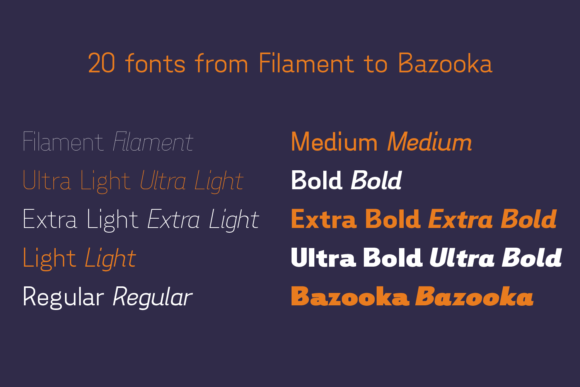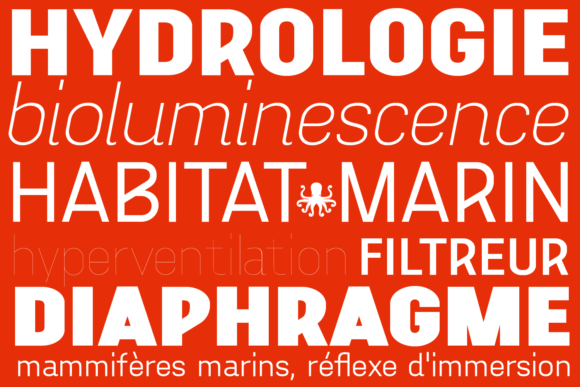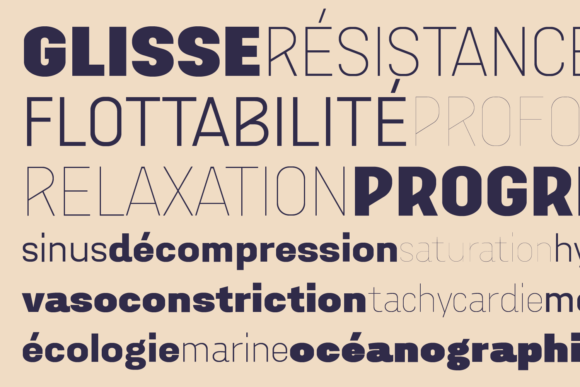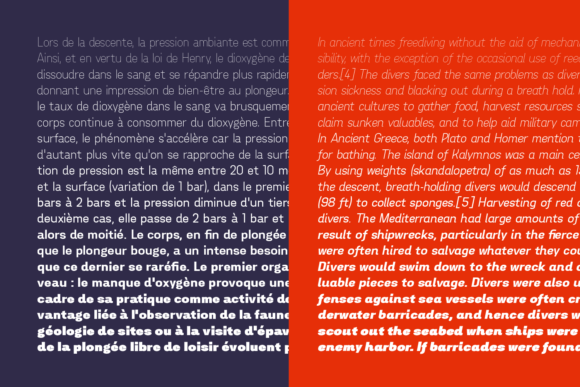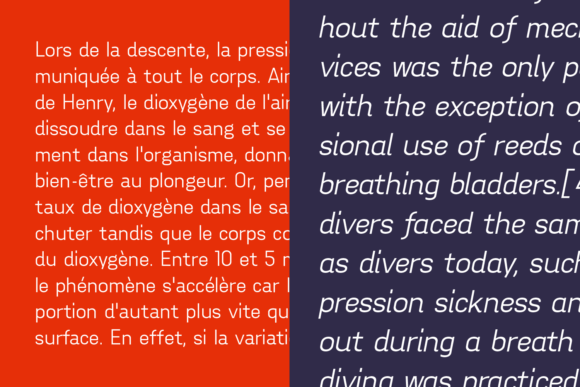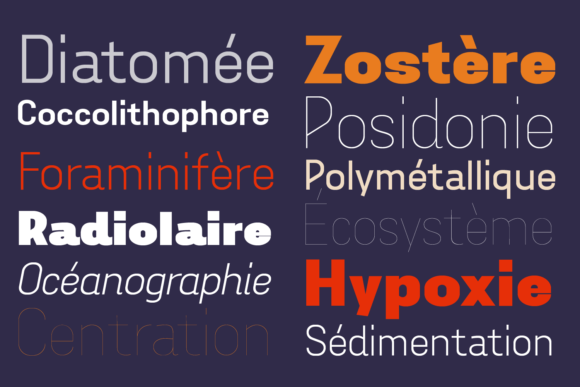
Aconit Font: A Modern Sans Serif Font Family for Graphic Design and Beyond
In the world of typography, a font can make all the difference in the aesthetic and effectiveness of a design. For designers and crafters looking for a modern sans serif font that combines technology with art nouveau flair, Aconit Font is an excellent choice. This versatile font family offers a unique blend of styles, making it perfect for a wide range of applications, from graphic design and poster displays to web applications, signage, video games, and printing.
What is Aconit Font?
Aconit Font is a contemporary sans serif font family that brings together the sleekness of modern design with the elegance of art nouveau. This fusion results in a distinctive look that is both stylish and highly legible. The Aconit Font family consists of 10 weights, ranging from Filament to Bazooka, each accompanied by its italic version. This extensive range allows designers to choose the perfect weight to suit their project’s needs, ensuring versatility and flexibility.
Key Features of Aconit Font
- 10 Weights and Italics: The Aconit Font family offers 10 different weights, from the light Filament to the bold Bazooka, each with its corresponding italic style. This variety enables designers to maintain font consistency across different elements of a design while varying the emphasis.
- Language Support: Aconit Font supports a large range of languages, making it an excellent choice for global brands and projects that require multilingual support.
- Arrows: The font includes a set of arrows, adding an extra layer of functionality for designers working on projects that require directional indicators or decorative elements.
Applications of Aconit Font
Aconit Font’s versatility makes it suitable for a variety of applications:
- Graphic Design: Ideal for creating visually appealing brochures, flyers, and posters, Aconit’s range of weights and styles allows for hierarchical organization of information and aesthetic appeal.
- Poster Display: The font’s modern sans serif look with art nouveau undertones makes it perfect for eye-catching posters and billboards.
- Web Applications: Aconit Font’s legibility on digital screens makes it a great choice for websites, mobile apps, and digital interfaces.
- Signage: For both indoor and outdoor signage, Aconit’s clear and stylish letters ensure messages are conveyed effectively.
- Video Games: The font’s modern look fits well with the aesthetic of contemporary video games, and its range allows for diverse use across game UI, titles, and in-game text.
- Printing: Whether for business cards, magazines, or books, Aconit Font offers a fresh and contemporary feel to printed materials.
Why Choose Aconit Font?
Choosing Aconit Font for your design projects comes with several benefits:
- Unique Style: The blend of modern sans serif and art nouveau elements provides a unique look that can help your designs stand out.
- Flexibility: With 10 weights and matching italics, you have the flexibility to create visually appealing hierarchies and emphasize certain parts of your text.
- Legibility: Aconit Font maintains high legibility across all its weights, ensuring your message is communicated clearly.
- Multilingual Support: The font’s extensive language support makes it a practical choice for international projects.
Aconit Font is a powerful tool for designers and crafters looking to add a modern touch with a hint of art nouveau to their projects. Its extensive range of weights, language support, and included arrows make it a versatile and practical choice. Whether you’re working on graphic design, web applications, signage, video games, or printing, Aconit Font offers a unique blend of style, legibility, and flexibility that can elevate your designs to the next level.
Explore the possibilities of Aconit Font and discover how this modern sans serif font family can bring a fresh perspective to your creative projects.